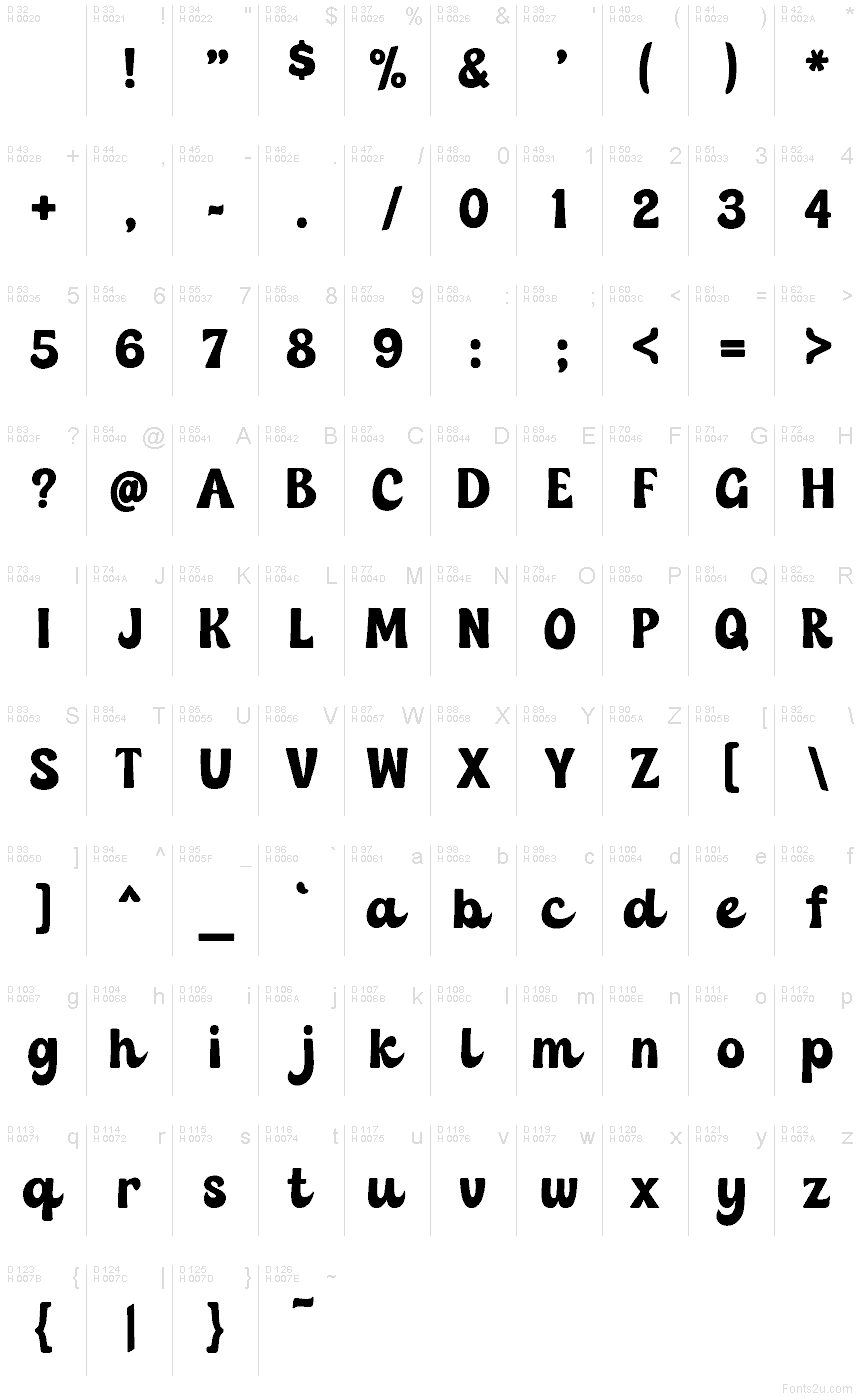
The Rolling Stone
The Rolling Stone font by Cat.B draws inspiration from the retro era, showcasing a whimsical groovy display style that provokes visions of the 1960s. It has bold characters that mimic a handwriting style yet in a more artistic way. Distinctive personality shines through this charming typeface which is undeniably unique and one of kind.
This free display font is most suitable for art and musical posters, concert tickets, magazines, company branding, social media ads, book covers, packaging designs for juices or perfumes, logotypes for fashion or artistic brands, music album covers, and much more!